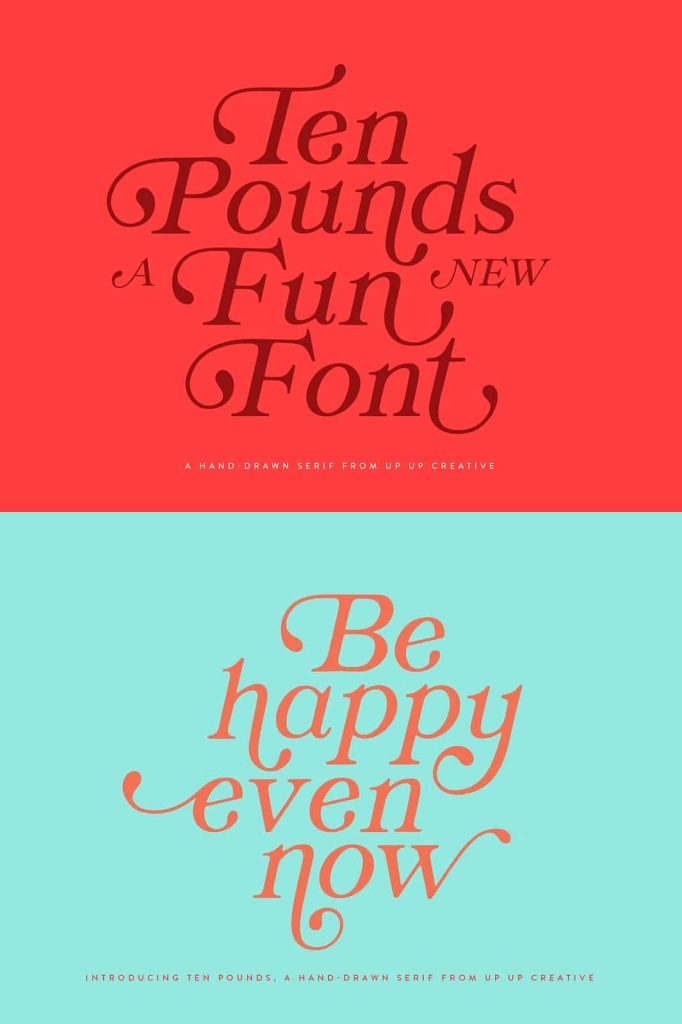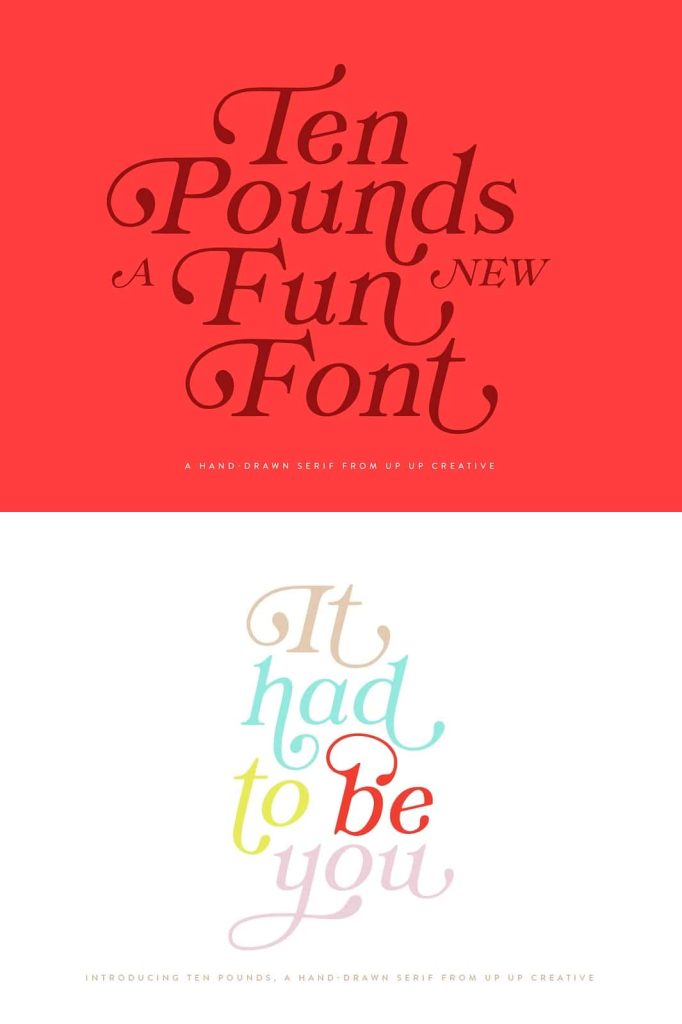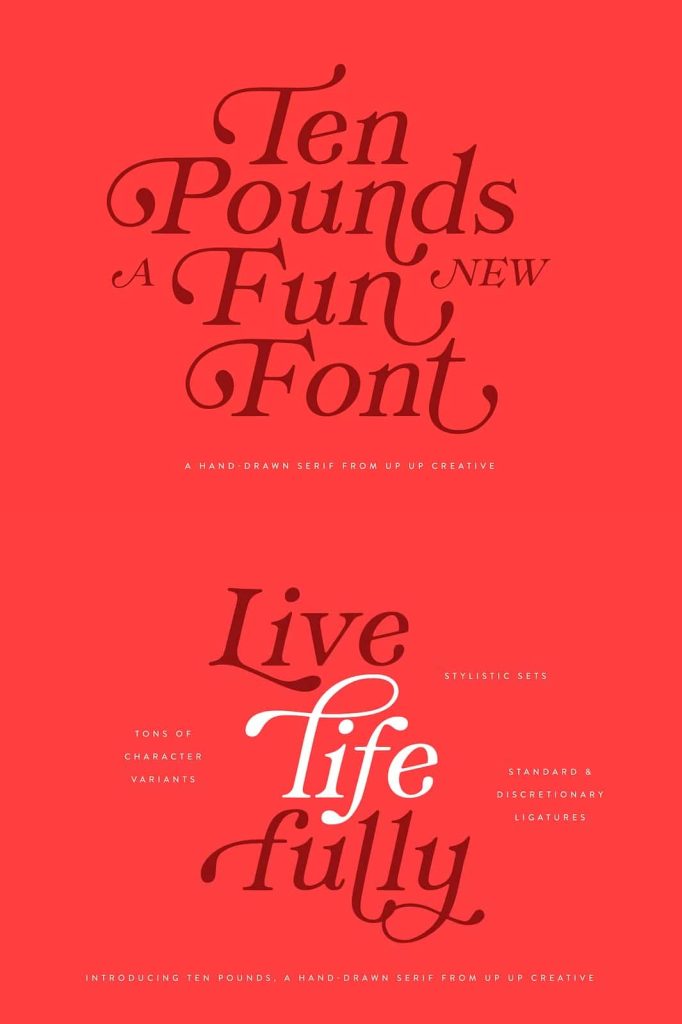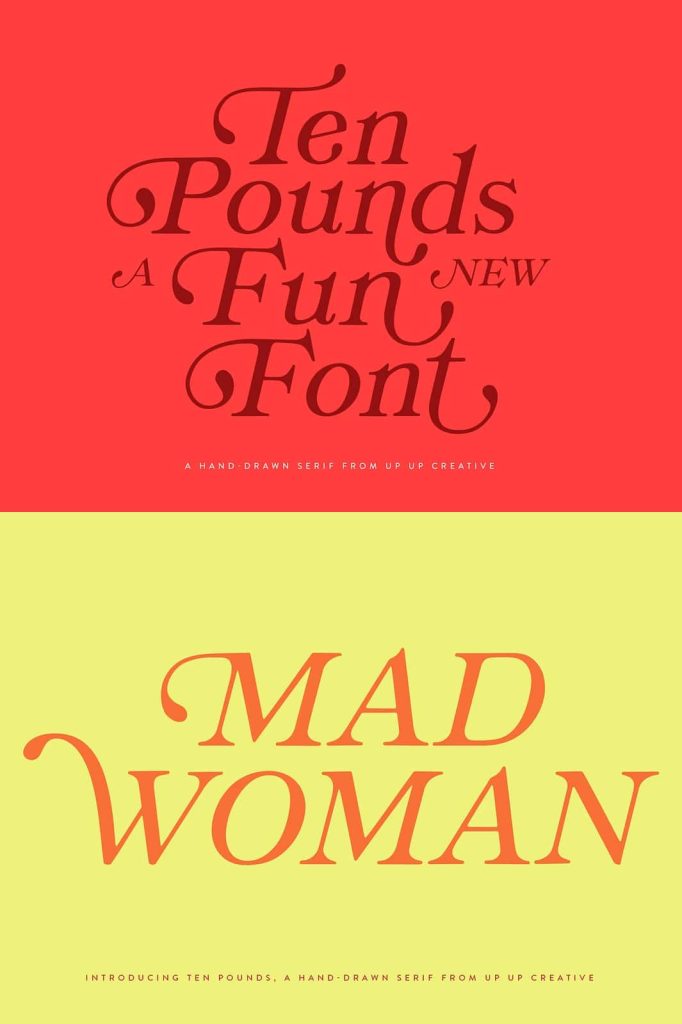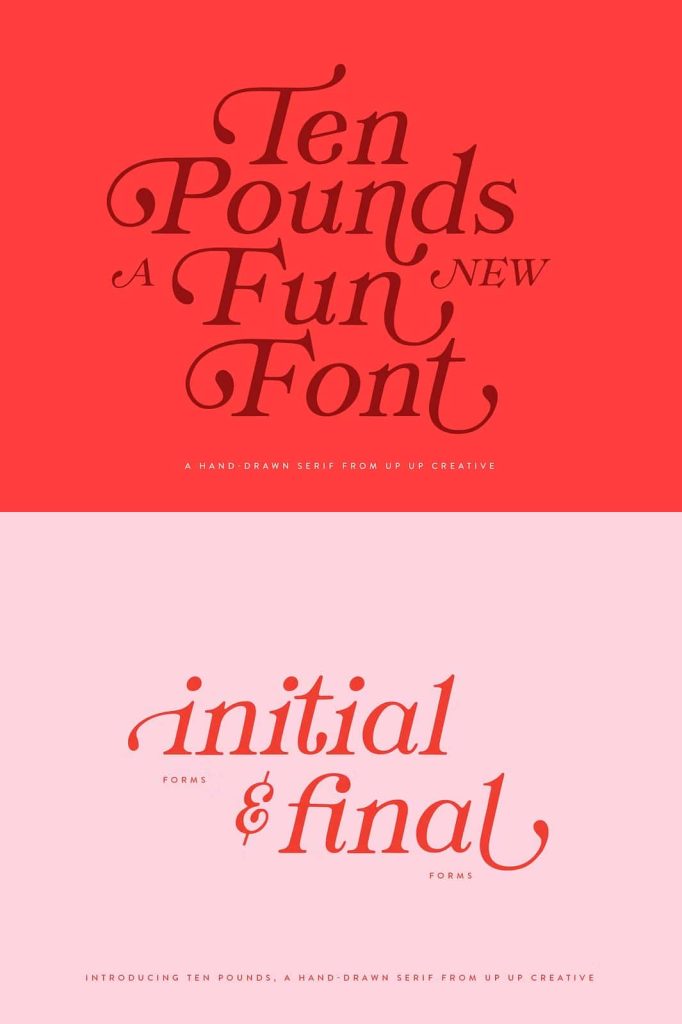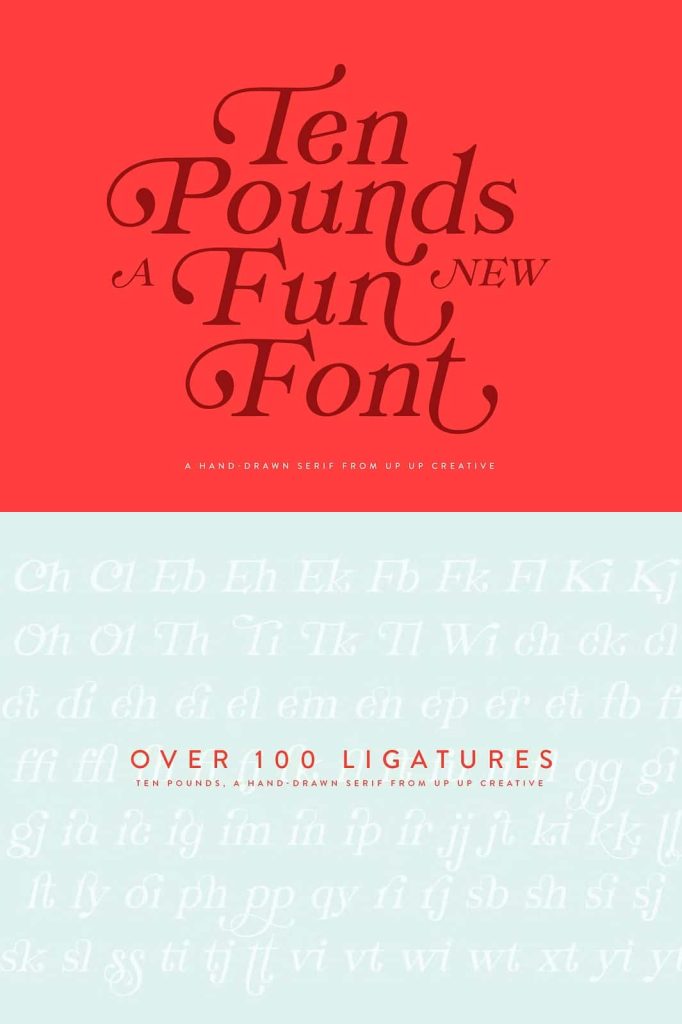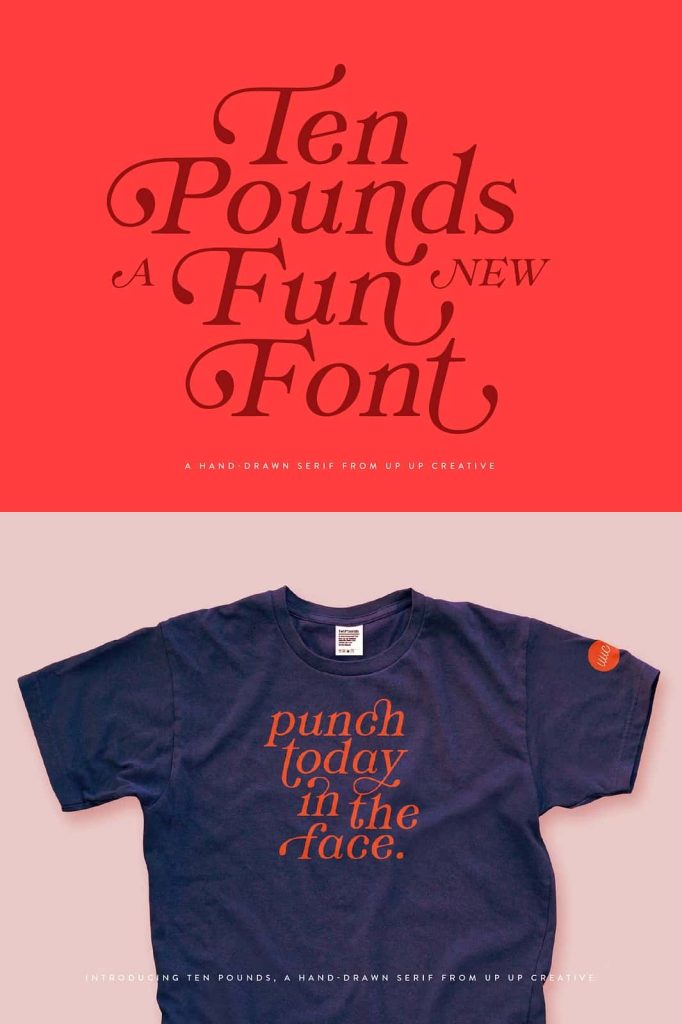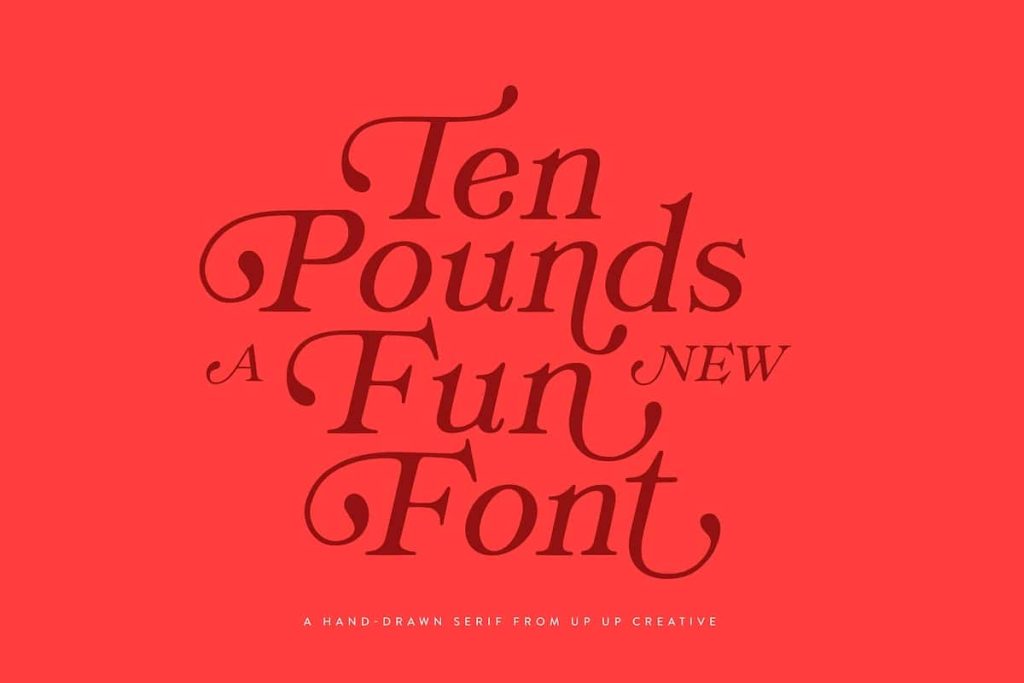
Ten Pounds, A Hand-Drawn FontleastedJune 29, 2025Fonts Ten Pounds is perfect for branding, poster design, t-shirts, invitations, design for children, and editorial design. Download